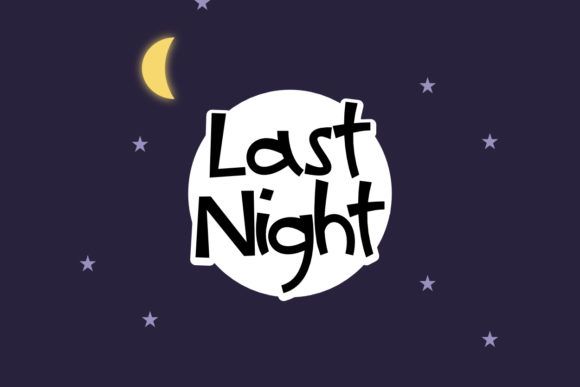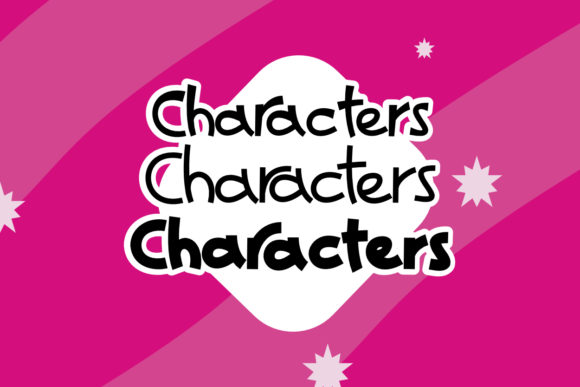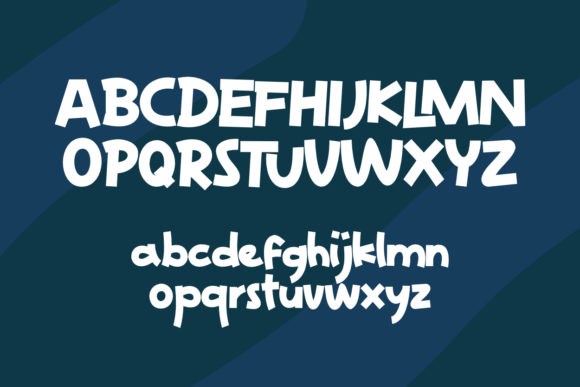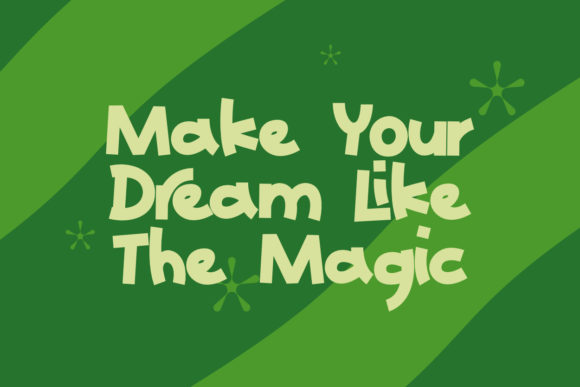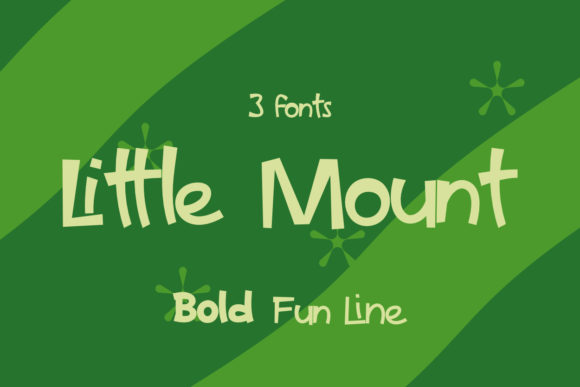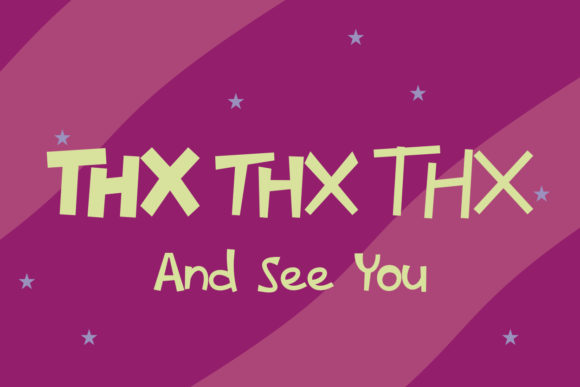
Little Mount Font
About Little Mount Font
Little Mount is a cute handwritten font. It comes in three different styles. This fantastic font is best suited for headlines of all sizes, as well as for blocks of text that have both maximum and minimum variations. Whether it’s for web, print, moving images or anything else – Little Mount will look spectacular.